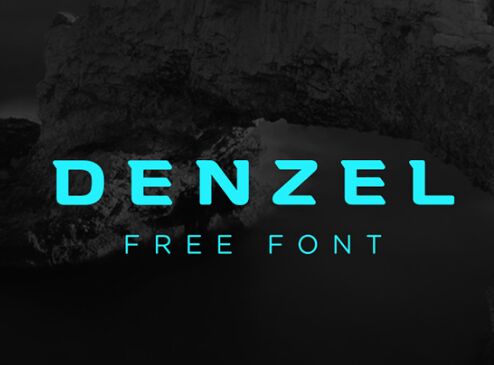
The Denzel Geometric Font was generously created and offered for free by urazovsky - download it now to enhance your next project with a professional-grade asset at no cost.